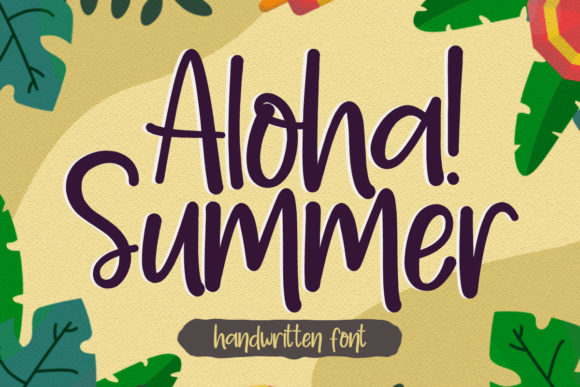
Embark on a typographic journey with the enchanting Aloha Summer Font, a script typeface that exudes both sweetness and tranquility. Its meticulous design ensures it will become your go-to choice for creating captivating and elegant designs.
Picture this: your words, adorned with the charm of Aloha Summer, flowing effortlessly across the page like a gentle summer breeze. Whether it's a heartfelt letter, an engrossing novel, or a stunning invitation, Aloha Summer will lend its grace and artistry to every project.
Dive into the depths of literary creation, letting Aloha Summer's graceful curves and playful strokes guide your imagination. Its versatility makes it the perfect companion for book writing, allowing you to craft tales that leap off the page.
With Aloha Summer, you'll discover a font that seamlessly blends formal elegance with a touch of whimsy. Its neat arrangement of letters ensures that your designs, whether formal or casual, will radiate sophistication and charm.
So, embrace the allure of Aloha Summer and elevate your designs to new heights. Let its enchanting script weave its magic, transforming your words into works of art. Unleash your creativity and embark on a journey of typographic exploration, knowing that Aloha Summer will accompany you every step of the way.